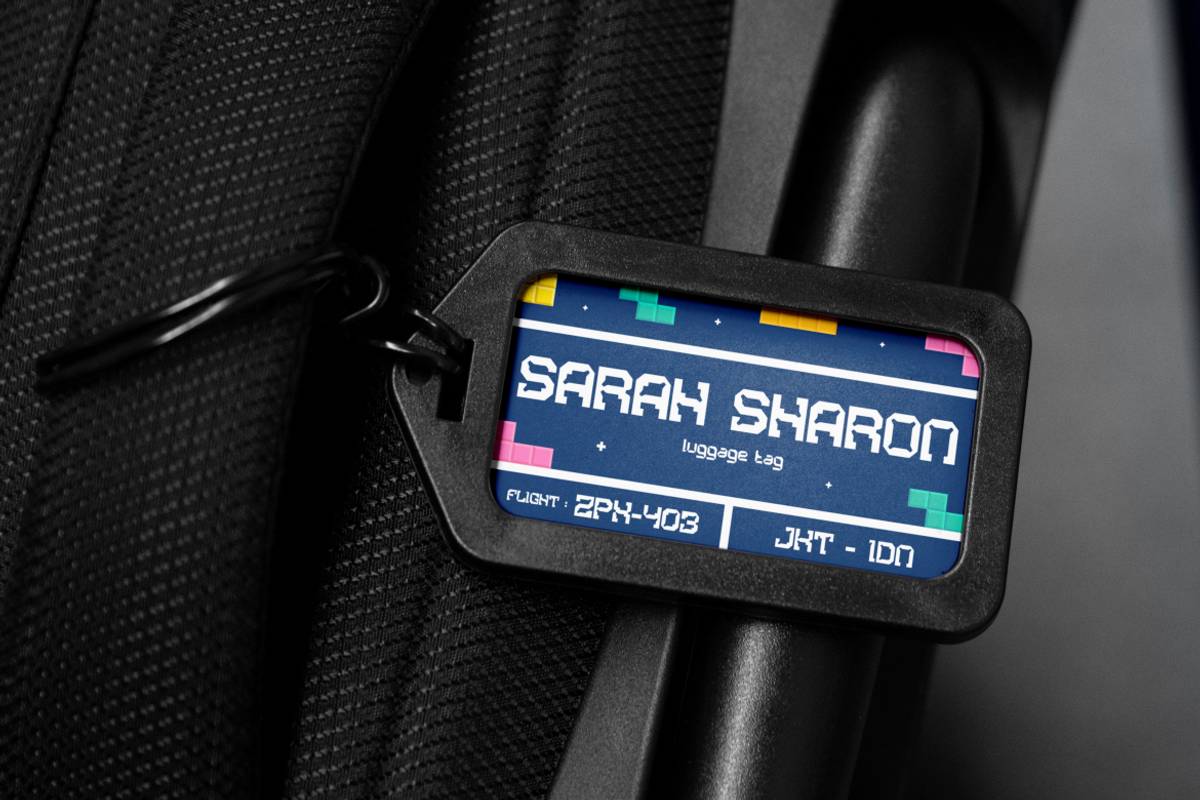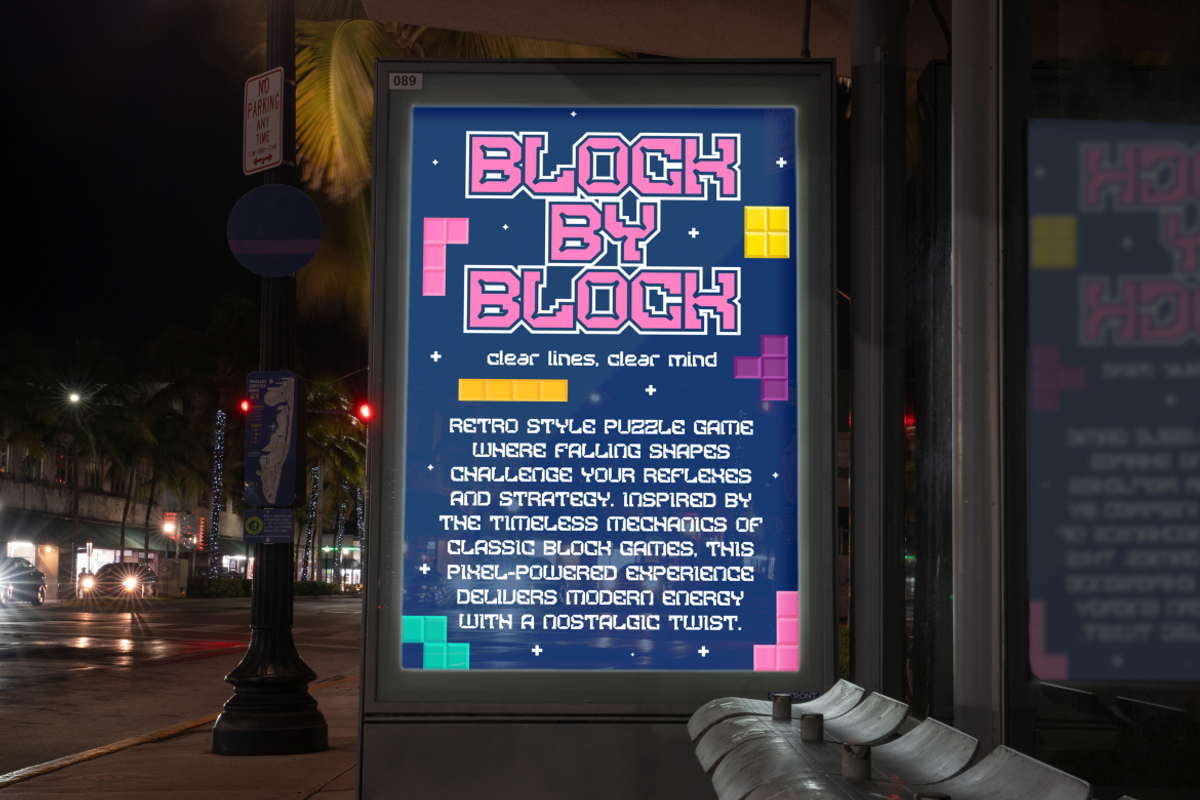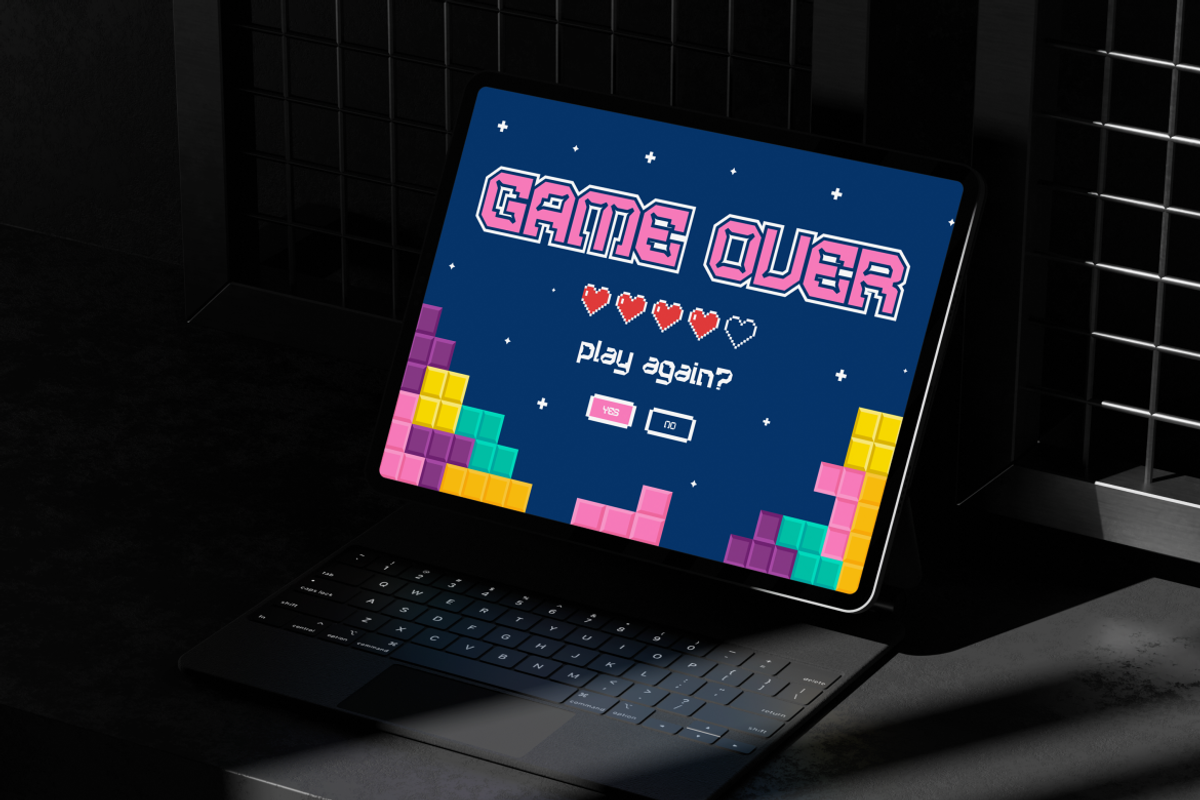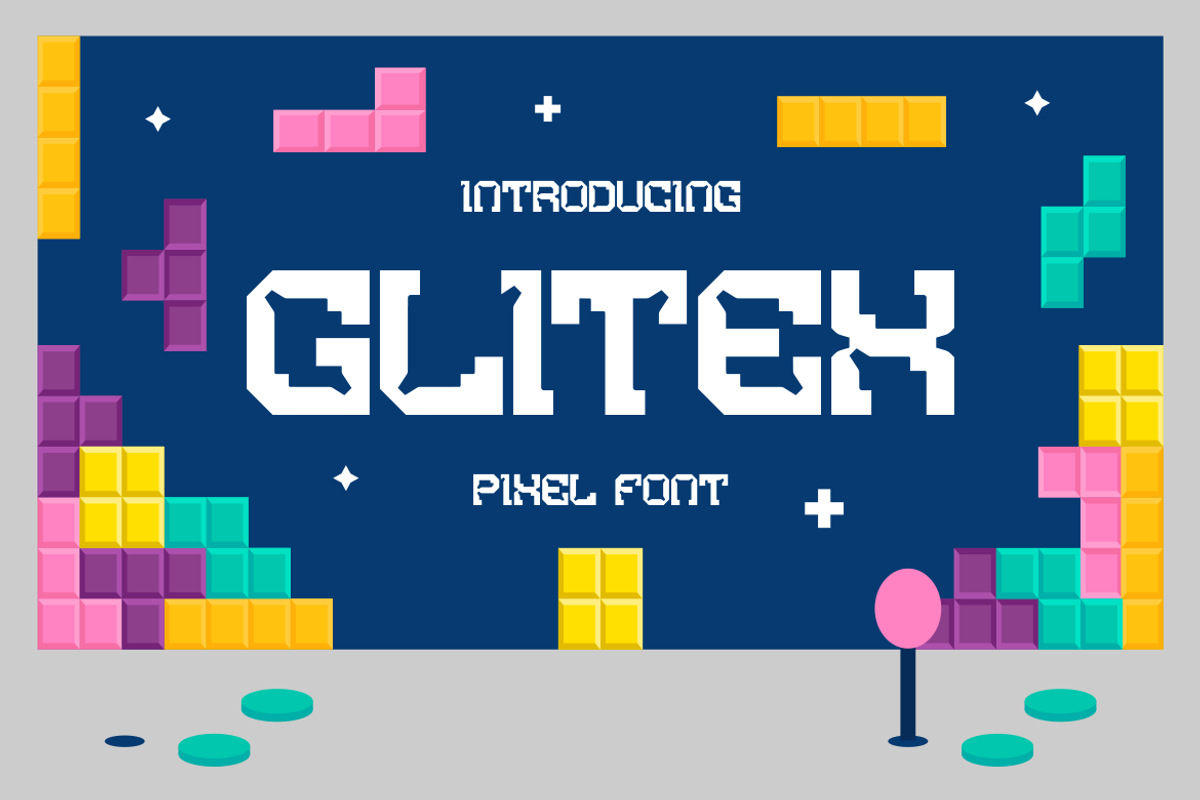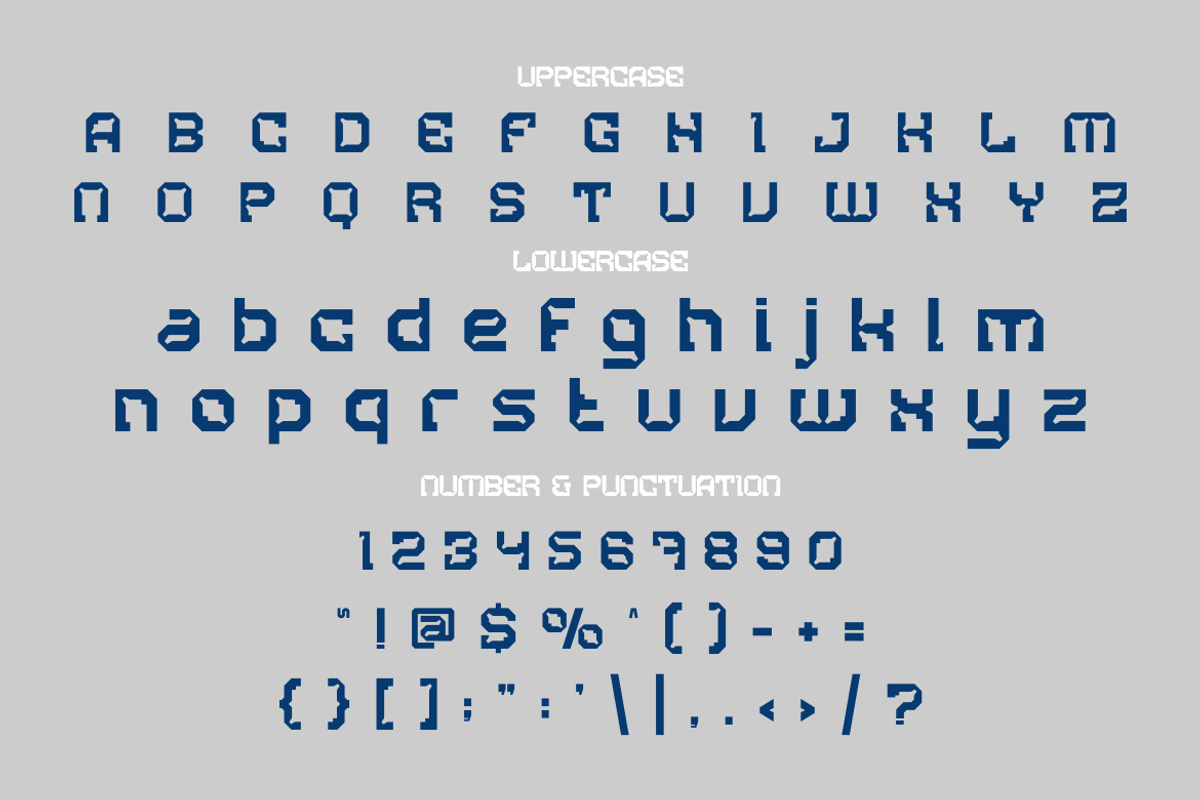
Glitex Pixel Font
Glitex Pixel Font is a bold, edgy typeface that channels the iconic charm of retro arcade design. Featuring sharp, geometric contours and consistent pixel detailing, this font blends nostalgia with futuristic aesthetics. Each letterform is constructed with a modular look, mimicking the clean block shapes of classic games like Tetris and 8 bit systems. From uppercase to lowercase, punctuation to numbers, every character exudes a game inspired rhythm and uniformity. The spacing is carefully balanced, making it highly legible even at smaller sizes. Whether used on dark or colorful backgrounds, Glitex pops with a powerful presence that captures attention immediately.
Ideal for gaming interfaces, esports branding, nostalgic poster designs, or pixel themed packaging, Glitex provides a modern digital edge with a playful twist. The font’s structured layout makes it an excellent fit for titles, signage, product labeling, or digital ads. It’s perfect for designers targeting youth culture, game developers, or tech startups seeking a dynamic visual identity. This font is designed to bring fun, energy, and clarity to any creative project—especially those that want to evoke the spirit of the arcade era with a contemporary spin.